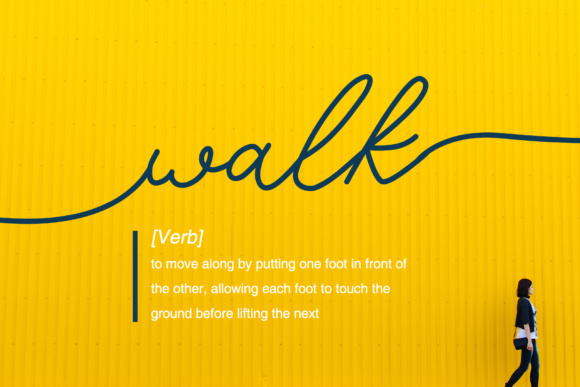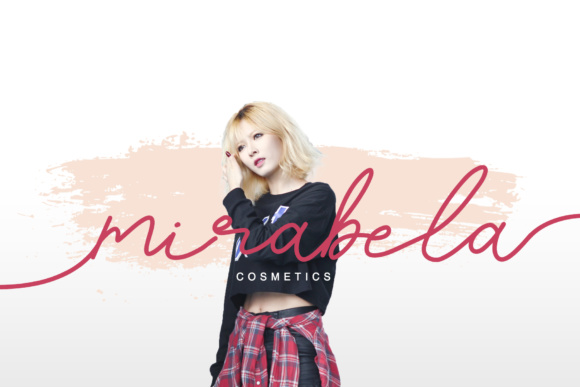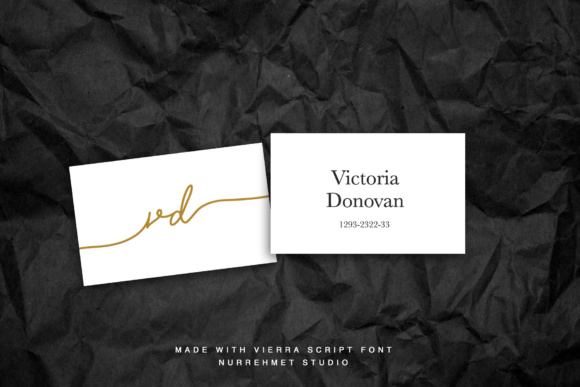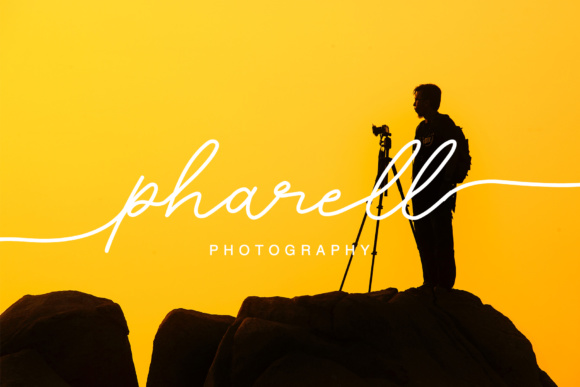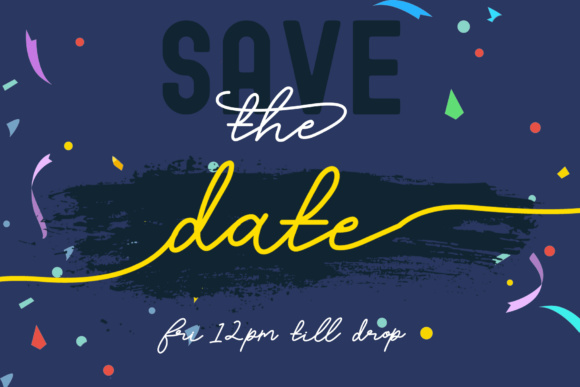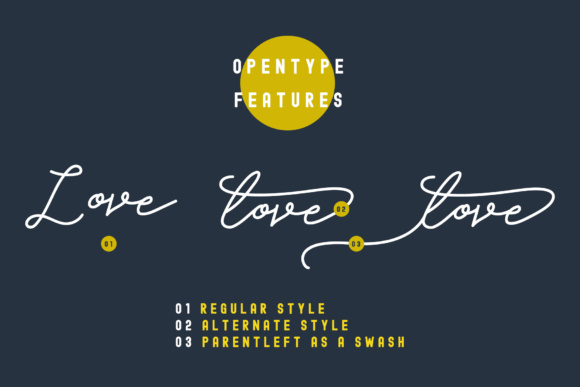
Vierra Font
About Vierra Font
Vierra is a gorgeous handwritten, playful cursive font that can add a modern touch to your work! This elegant font can be used in both print and digital projects and adds an editorial appeal to your work.